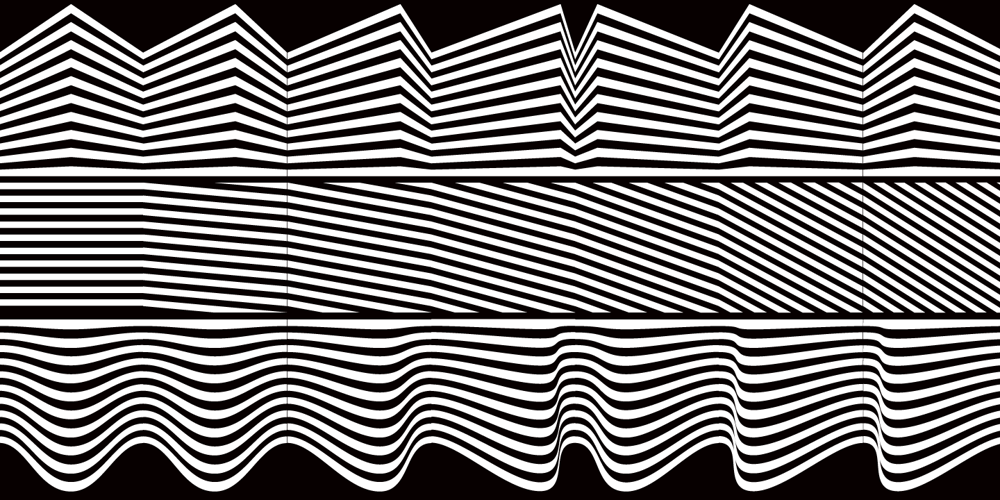
Guilloche B
Guilloche B font
Guilloche B Font Family was designed by Gert Wiescher and published by Wiescher Design. Guilloche B contains 1 styles and family package options. »Guilloche B« is a set of graphics that join with each other to form very sophisticated, op-art-like borders. Try them on lots of different assignments, they form very surprising bands or patterns.